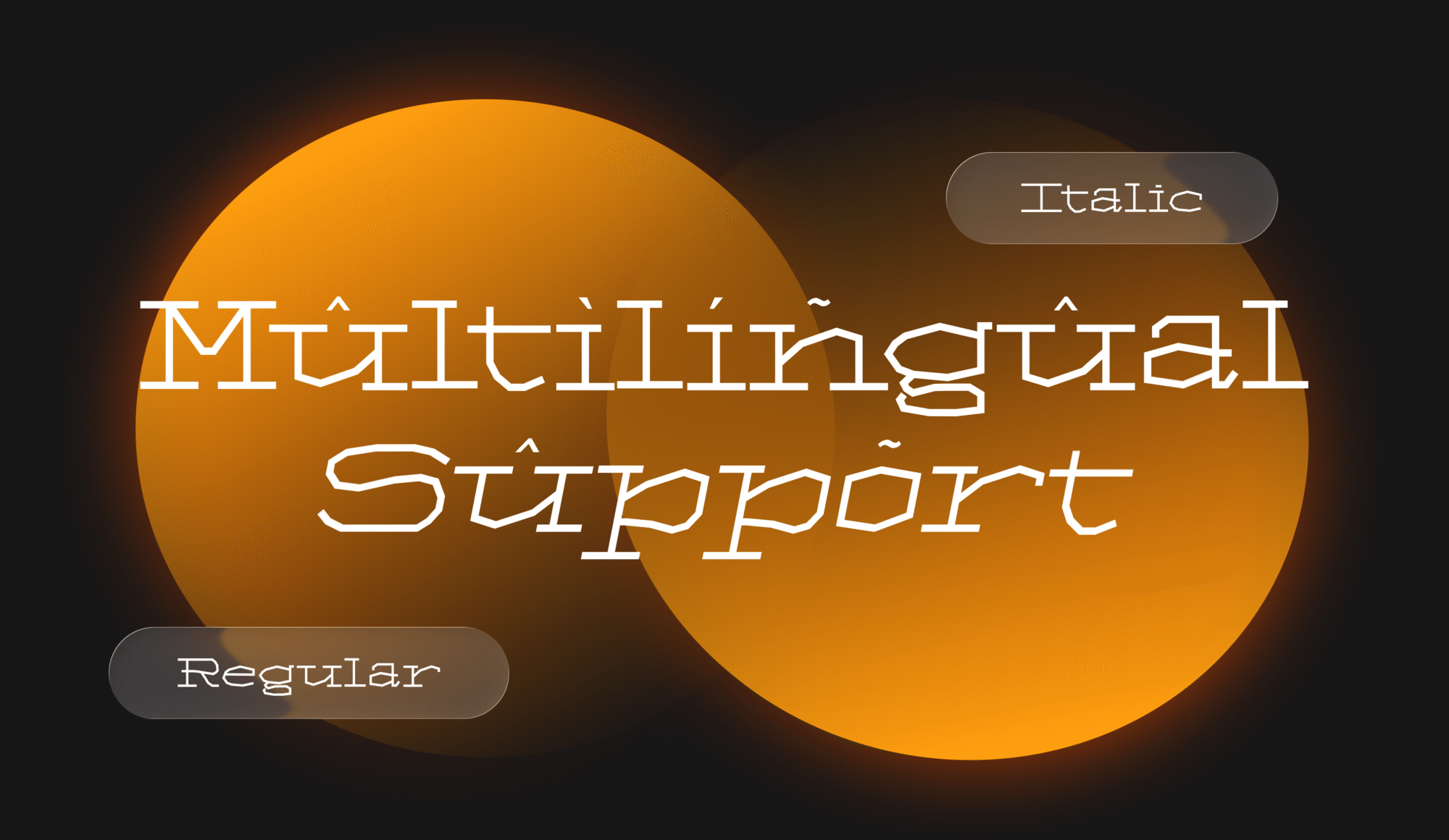
FT Ruinic – Strong Display Typeface for Impactful Design
FT Ruinic is a strong display typeface with powerful letterforms and a confident presence. Designed to command attention, it’s ideal for logos, posters, and impactful branding.
✔ Perfect for branding & posters
✔ Bold and confident character